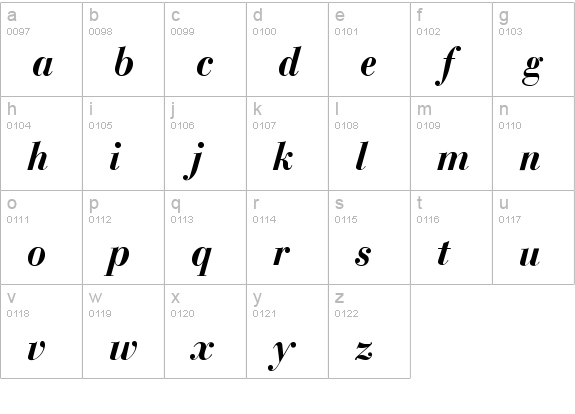
Bauer Bodoni Medium Italic Font Details
Bauer Bodoni Medium Italic is a balanced, medium-weight, italic variant in the Bauer typeface family \xE2\x80\x94 well suited to sub-headlines, navigation, and balanced editorial work.
Bauer Bodoni Medium Italic font is a classic and elegant typeface that exudes sophistication and style. With its graceful slant and delicate curves, this font is perfect for adding a touch of sophistication to your design projects. The medium weight of the font strikes the perfect balance between boldness and subtlety, making it versatile for a wide range of applications. What sets Bauer Bodoni Medium Italic font apart is not just its timeless design, but also the fact that it is available for free download at FontsMarket.com. This means that you can easily access this high-quality font without any cost, making it a valuable addition to your font library. Whether you're working on a branding project, editorial design, or any other creative endeavor, Bauer Bodoni Medium Italic font is sure to elevate your work with its timeless charm and refined aesthetic.